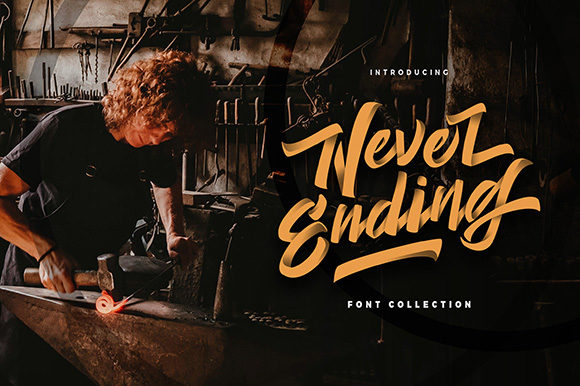
**Introducing Never Ending: A Journey to the Heart of Timeless Elegance**
Immerse yourself in the captivating allure of Never Ending, a script font that evokes the charm of a bygone era. Inspired by the art of penmanship, each letter flows effortlessly, leaving a trail of vintage sophistication in its wake.
Beyond its aesthetic appeal, Never Ending possesses a versatility that empowers you to transform your creative visions into tangible masterpieces. Whether you're crafting alluring branding materials, adorning t-shirts with a touch of nostalgia, or creating eye-catching posters, Never Ending effortlessly elevates your designs.
Its handwritten strokes, imbued with a striking appeal, lend an air of authenticity to your work. Think of it as a personal touch, a whisper from the past that adds a layer of depth and emotion to your creations.
Each glyph, meticulously crafted by the artisans at InspiraType, is a testament to their passion for detail. The result is a font that seamlessly blends the appeal of the past with the demands of the present, creating a timeless companion for your design endeavors.
So, embark on an unforgettable journey with Never Ending, where the allure of vintage meets the boundless possibilities of modern creativity.